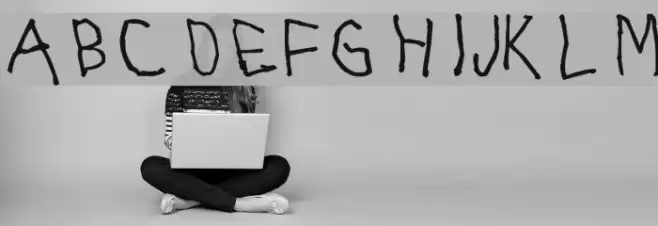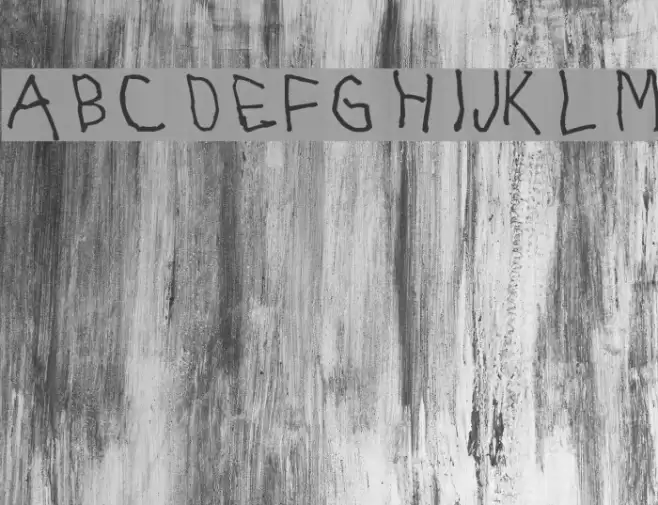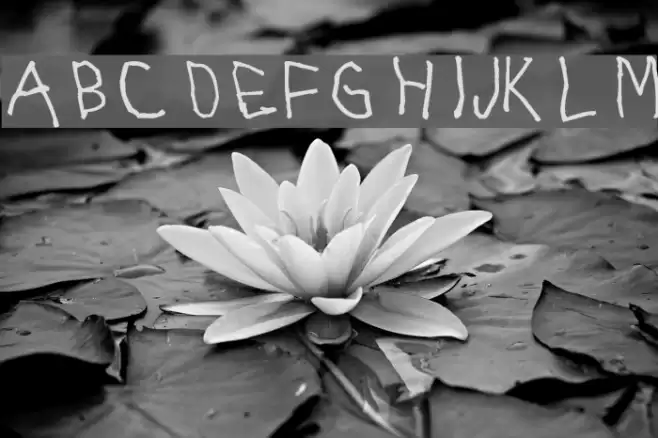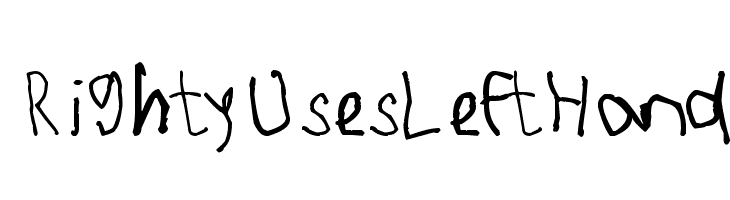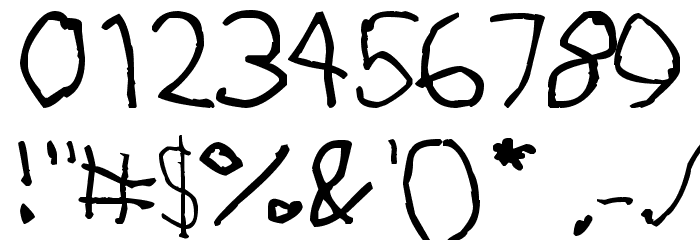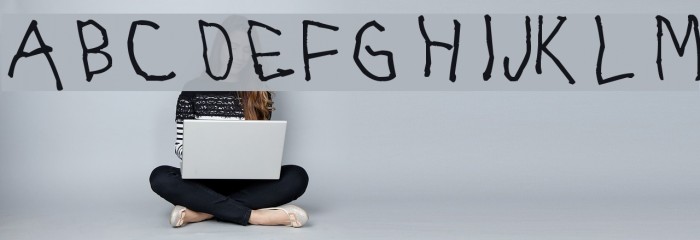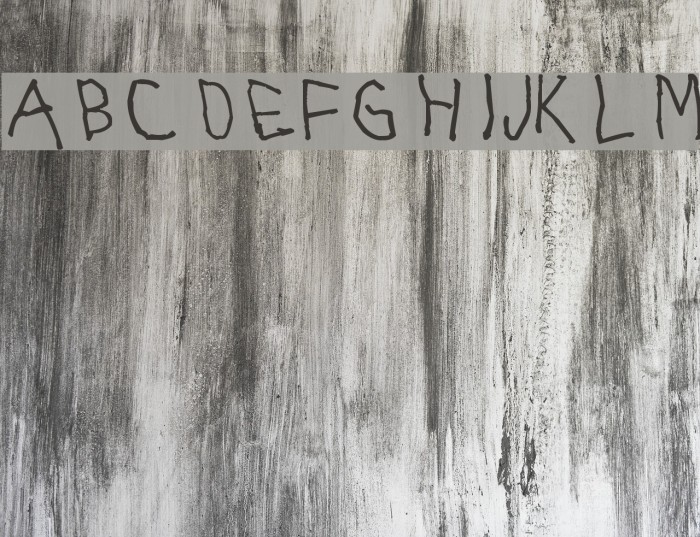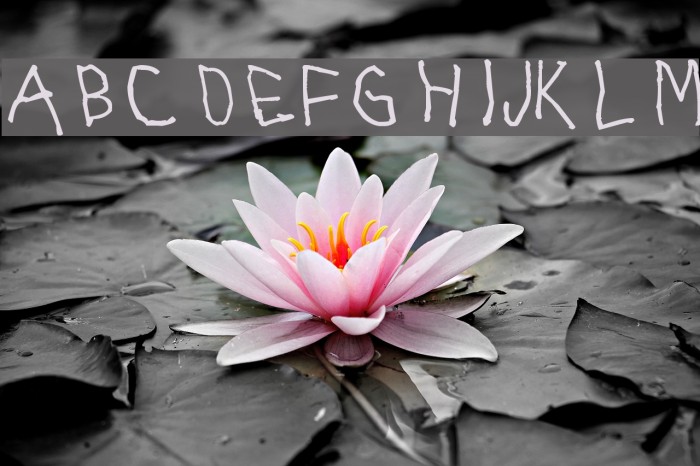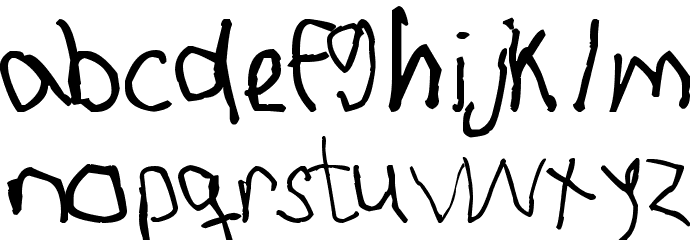
RightyUsesLeftHand Font
RightyUsesLeftHand Description
This font exhibits a playful and whimsical handwritten style, characterized by its uneven strokes and irregular shapes. The letters appear as if they were drawn with a marker, giving them a bold and expressive appearance. The uppercase and lowercase letters maintain a consistent style, with some letters featuring unique embellishments, such as the heart-shaped 'o'. The numbers and special characters follow the same playful design, adding to the font's overall charm. This font is perfect for projects that require a personal touch or a casual, fun aesthetic.
A playful, whimsical handwritten font with bold, expressive strokes.
- Proposed Projects: Ideal for children's books, greeting cards, playful branding, and casual invitations.
- Category: Handwritten
- Overall Style: Casual, Playful
- Use Case: Headlines, Logos, Informal Text